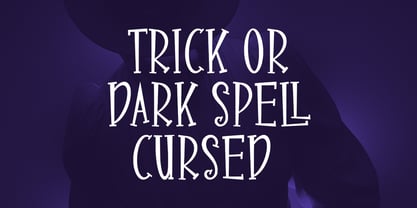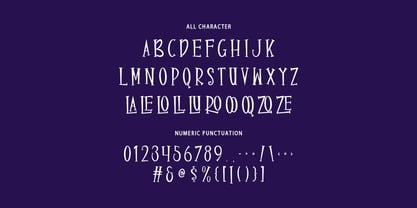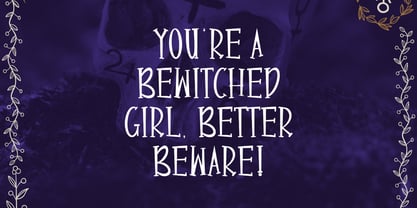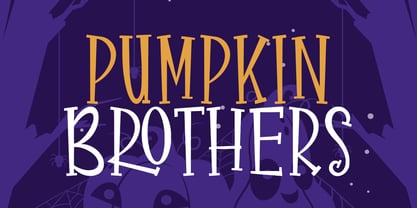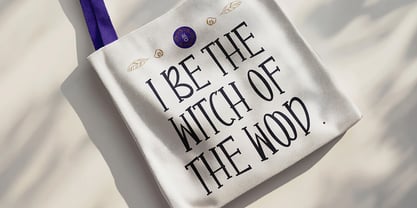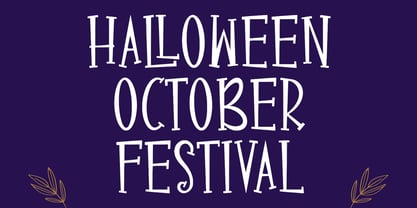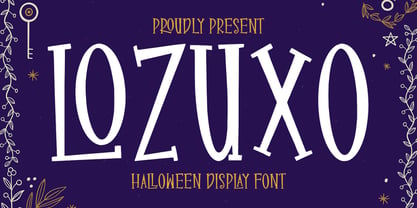
MC Lozuxo
by Maulana Creative
The MC Lozuxo Font Family was designed by Gilang Maulana and published by Maulana Creative. MC Lozuxo contains 1 styles. More about this family
Lozuxo is a whimsical Halloween display font that captures a playful yet spooky essence. Its unique irregular shapes and charming curves make it an ideal choice for Halloween parties, eerie invitations, and magic-themed projects. This font seamlessly combines an air of mystery with a friendly vibe, ensuring it stands out while maintaining a fun and enchanting feel. Lozuxo is perfect for seasonal campaigns or year-round spooky designs, making it your go-to font for creative, magical, and hauntingly beautiful branding. Elevate your projects with Lozuxo and let the Halloween spirit shine through with a touch of mischief and fantasy.